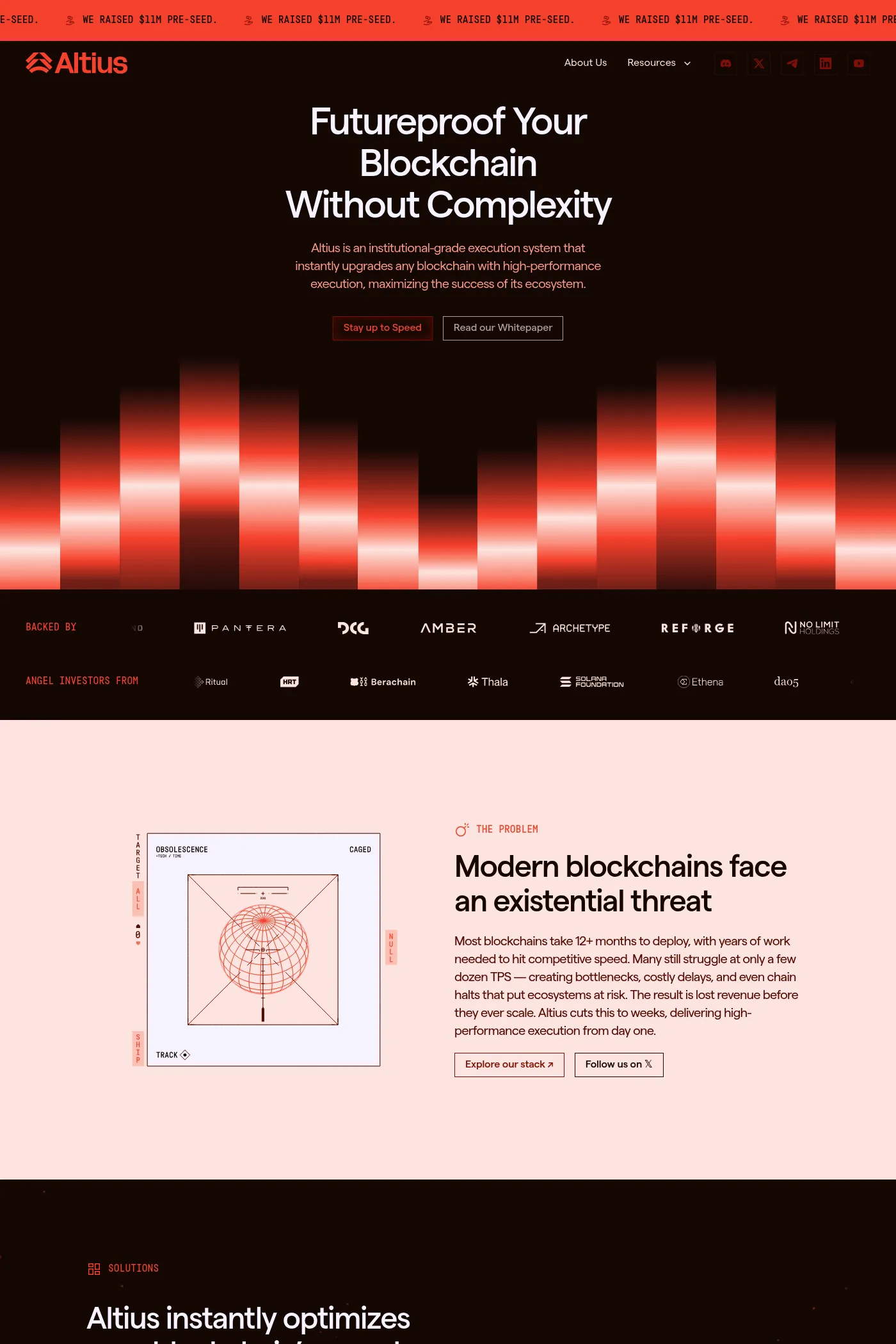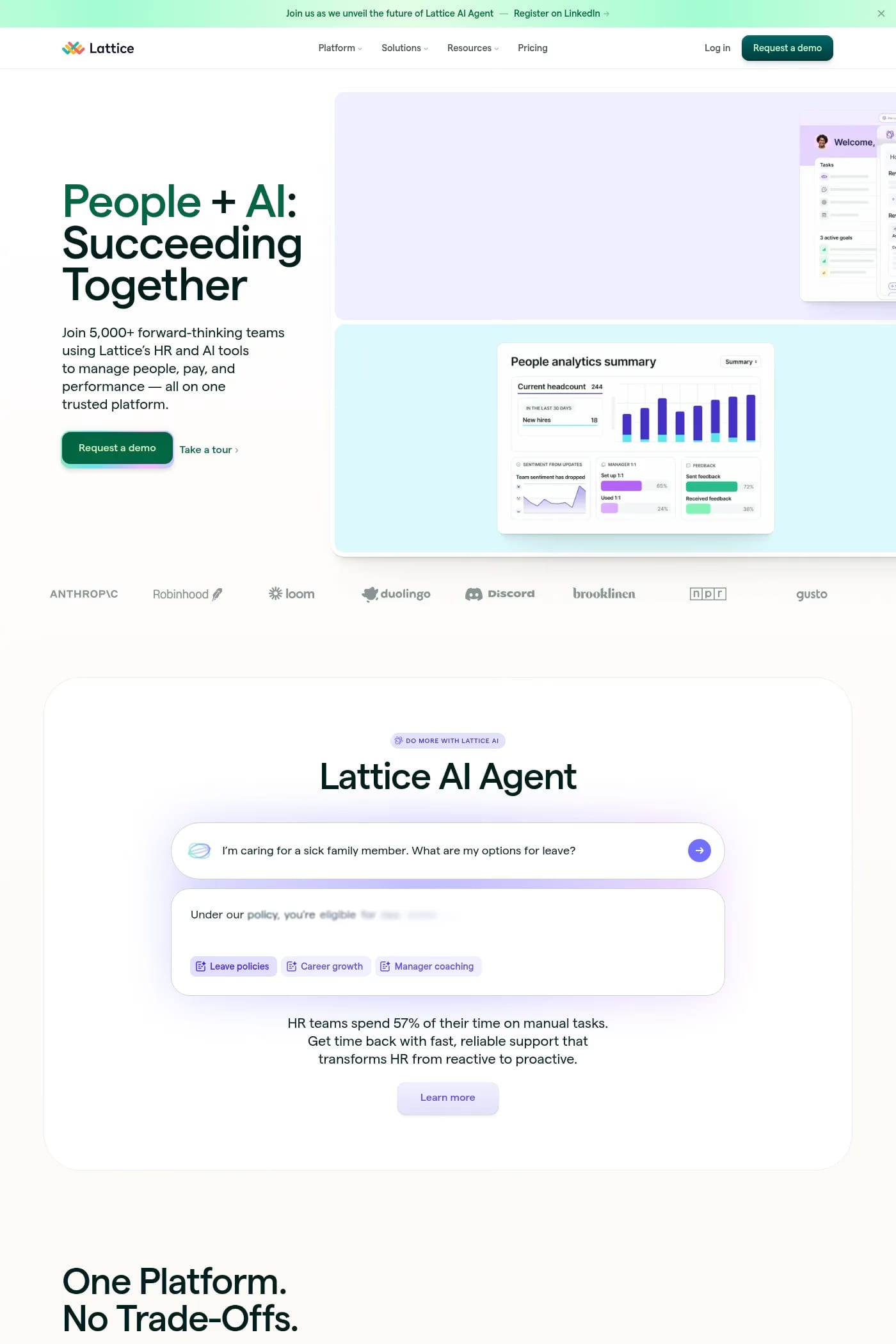
Matter is a sans-serif typeface from Displaay Type Foundry.
Matter is a grotesque typeface with a subtle, warm touch, thanks to its lively forms and diagonal terminals. Even the vertical terminals have a slight angle, adding character where you might not expect it.